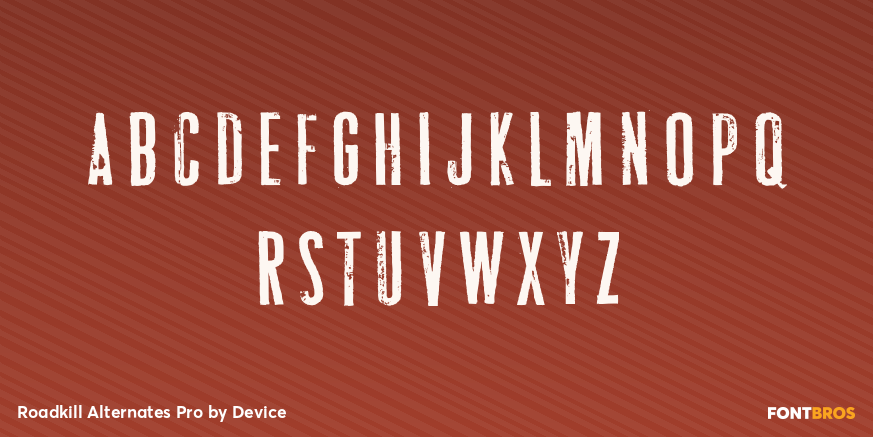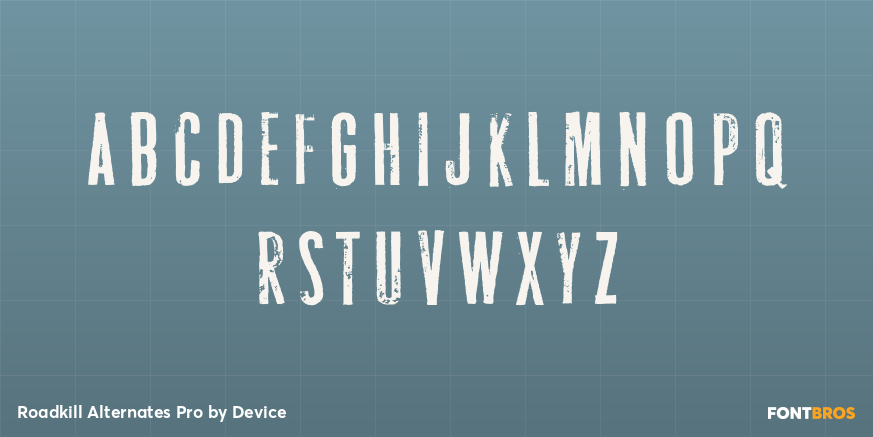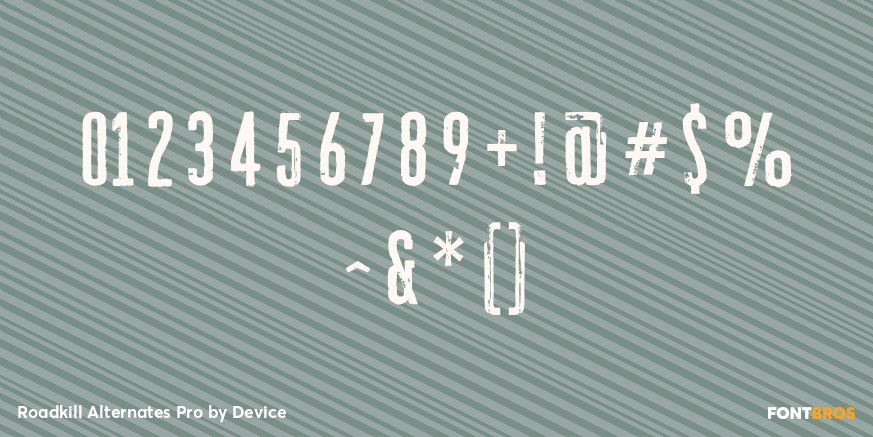
Roadkill Alternates Pro
Buy NowDerived from a photograph Rian Hughes took in Hong Kong, the Roadkill family of typefaces is a literal interpretation of rough and worn road lettering.
The original provided almost all of the key character shapes, with the others being designed to keep the unique hand painted feel intact. Most of the letters have alternate versions provided.
This font works equally well at wider letterspacing settings.
Roadkill Alternates provides curved versions of the 2 and the S, a G with higher crossbar, and less worn versions of several other characters. The heavy version packs even more gritty wallop in a non-condensed and blacker weight.
Roadkill Heavy packs even more gritty wallop in a non-condensed and blacker weight.
Use in conjuction with the original Roadkill and Roadkill Alternates.
A set of arrows and other road symbols again taken directly from tarmac to Mac, thus preserving the worn and eroded appearance of the original characters is also part of the Roadkill family.